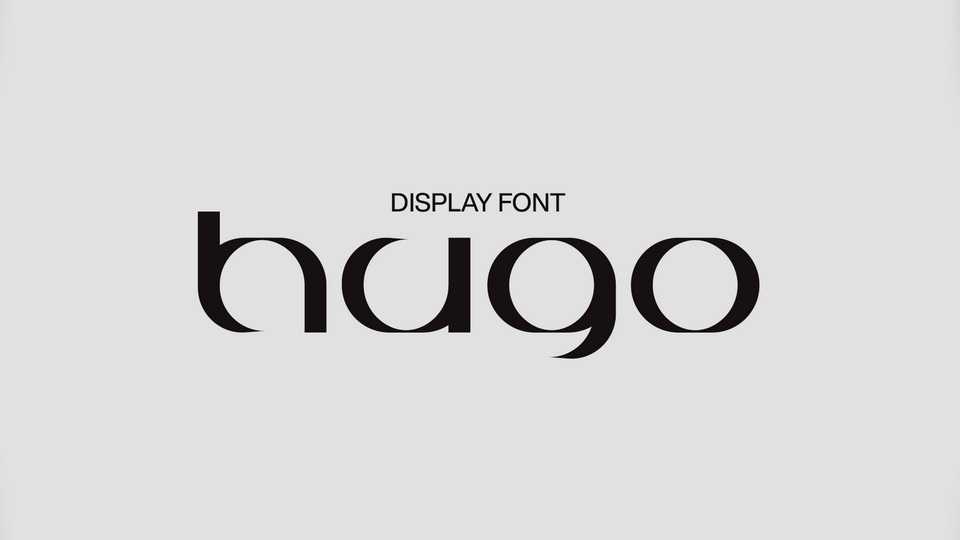
Download Hugo font, a modular display typeface based on simple geometric shapes. Hugo font works best for large sizes, fits for posters, album covers and typographic artworks.
Designer: Visual Avortic